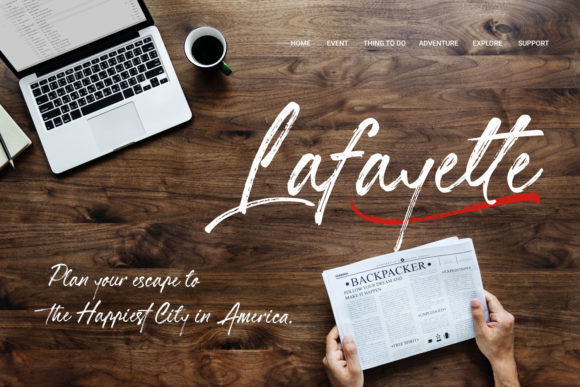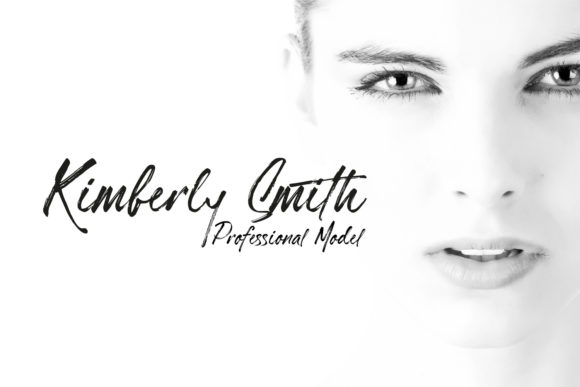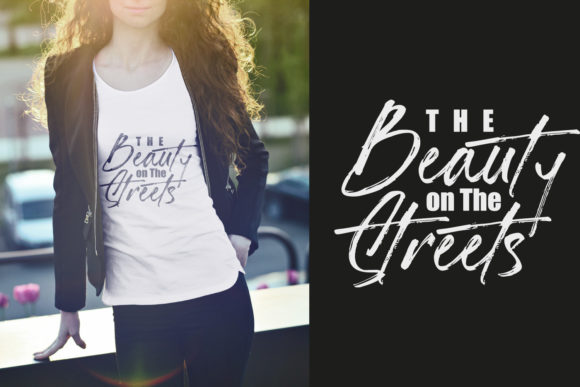
The Perfect Blend of Whimsy and Style: Unleashing the Magic of Hillstone Font
Do you remember that moment when a spark of creativity hits you, and you know exactly what you want to create? For many designers, it’s the moment when the perfect font comes to mind, setting the tone for a project’s entire aesthetic. For us, that font is the Hillstone Font – a fun and playful handwritten font that brings a cool vibe to any design.
This charming font is not just a pretty face; it’s a powerful tool for designers looking to add a unique twist to their work. Whether you’re creating a brand identity, a social media campaign, or a promotional material, the Hillstone Font is the perfect addition to take your design to the next level. Its versatility and playfulness make it a valuable asset for any designer looking to stand out from the crowd.
Hillstone Font Key Features
- Font Family: Hillstone is a unique, hand-drawn font with a natural, organic feel.
- Size: The font includes a range of weights, from Thin to Extra Bold, offering flexibility for various design applications.
- Unique Characteristics: Hillstone features a distinctive, hand-crafted aesthetic with subtle imperfections, adding a touch of personality to designs.
- Character Set: Includes a comprehensive set of characters, including Latin, Cyrillic, and Greek alphabets, as well as punctuation and symbols.
Honest Review of Hillstone Font
When I first laid eyes on the Hillstone font, I was immediately drawn to its unique blend of modern and vintage charm ✨. The clean lines and elegant curves make it a great choice for a wide range of projects, from logos and branding to body text and display typography. The font also features a decent range of weights, from light to bold, allowing for a good deal of flexibility in terms of design.
The font’s versatility is one of its strongest suits. It’s a great choice for creating a cohesive brand identity, and its subtle flair can add a touch of sophistication to even the most straightforward designs ✨.
- Unique blend of modern and vintage charm
- Decent range of weights for flexibility
- Great choice for logos, branding, body text, and display typography
- Subtle flair can add sophistication to designs
- Not ideal for highly stylized or avant-garde designs
- Lack of italic or oblique styles may limit its use in certain contexts
- Some users may find the font’s vintage elements too prominent
- May require additional styling to achieve desired results in certain contexts
Overall, I think the Hillstone font is a solid choice for designers looking to add a touch of elegance and sophistication to their projects. While it may have some limitations, its unique charm and versatility make it a great addition to any font collection.
Getting the Most Out of Hillstone Font
Use Hillstone Font for headings and titles to add a touch of elegance and sophistication.
Combine Hillstone Font with other fonts to create a unique and visually appealing design.
Experiment with different font sizes and styles to add emphasis and hierarchy to your design.
Use Hillstone Font for:
Brand logos and typography
Business cards and marketing materials